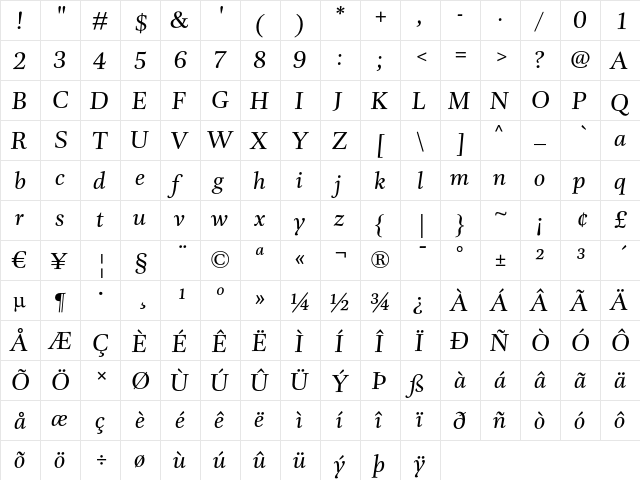
DTL Unico T Italic
Design Context for DTL Unico Typeface
DTL Unico offers clean, dependable letterforms without strong stylistic allegiance, making it a practical choice for designers who need flexibility. The dynamic lean of this cut emphasises speed and emphasis in any layout.
Pro Tip: Try DTL Unico for annotation and caption copy alongside an upright companion — the contrast in angle creates a dynamic but ordered typographic system.